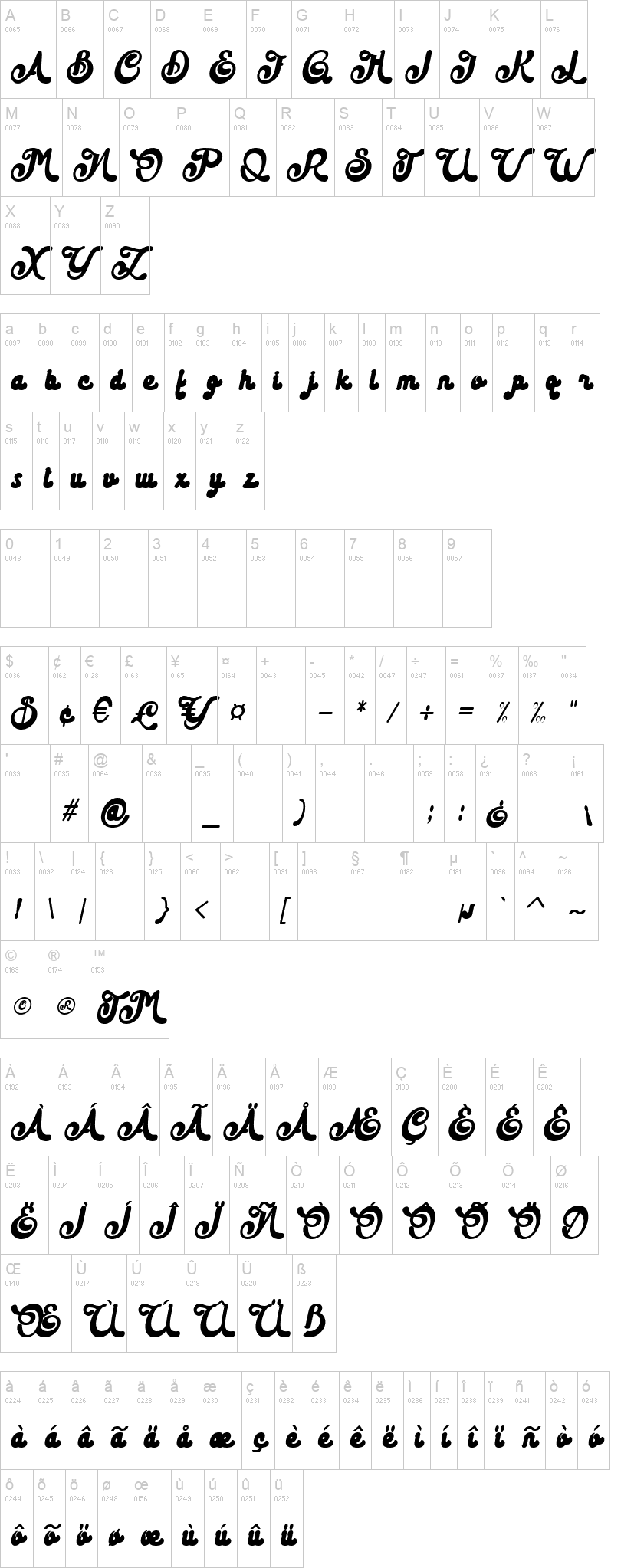
Note of the authorThe Stacy is a retro styled script font. This font reads as strong, confident, and dynamic and can add tons of nostalgic character to your designs.